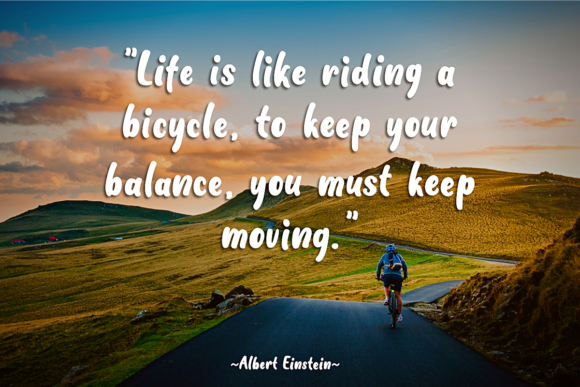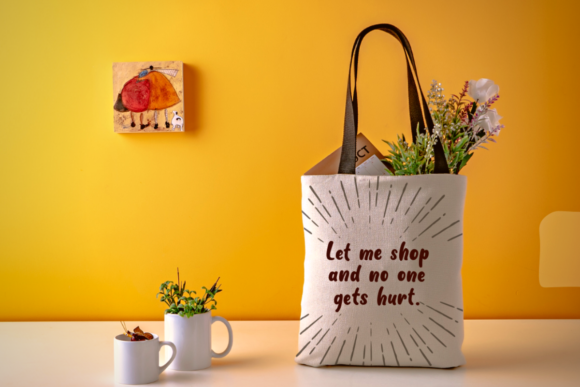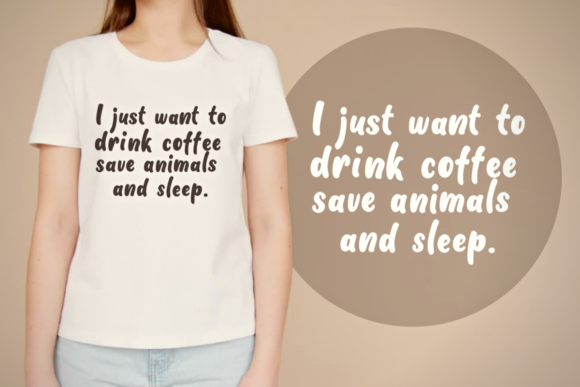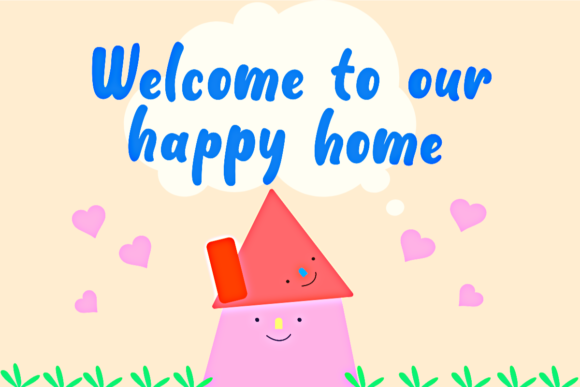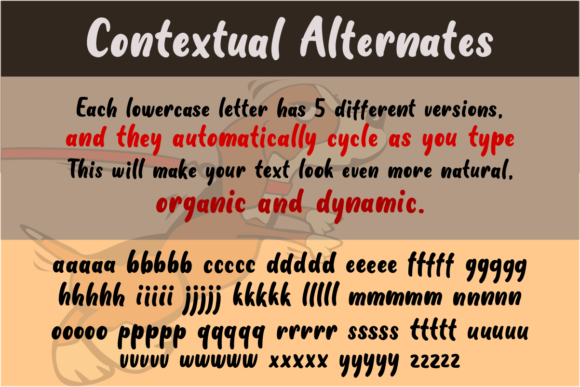
The Quest for the Perfect Font: How Calm Down Sampson Saved My Design
I still remember the frustration of working on a project, hours pouring into the design, and then realizing that something was off – the font just wasn’t right. It was a client request for a handmade craft project that needed a unique, retro vibe. I scoured the internet, tried font after font, but nothing seemed to fit. That was until I stumbled upon Calm Down Sampson, a cute, adaptable, and retro-styled handwritten font that changed everything.
An Honest Review of Calm Down Sampson
- ✨ The retro vibe is spot on – it’s like a nostalgic hug for my designs.
- ✅ The adaptability of this font is impressive; it works well for both headings and body text.
- 🎉 PUA encoding makes it easy to access all the glyphs and swashes, which is a game-changer for customizing designs.
- 💻 The font is clean and highly legible, even at smaller sizes.
While Calm Down Sampson is an excellent font, there are a few things to keep in mind:
- ⚠️ Some of the swashes and glyphs might require a bit of experimentation to get just right.
- 🤔 The font might not be the best fit for very formal or traditional projects, as it has a distinctly playful and retro feel.
The Backstory of Calm Down Sampson
While the exact origins of Calm Down Sampson are unclear, it’s easy to imagine that it was created with a passion for retro aesthetics and a love for handwritten fonts. The designer likely wanted to create a font that captures the essence of a bygone era while still being adaptable and easy to read. The result is a font that’s both nostalgic and versatile.